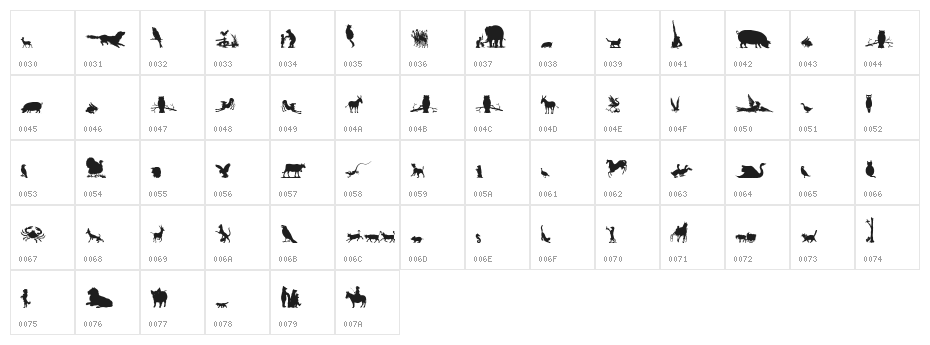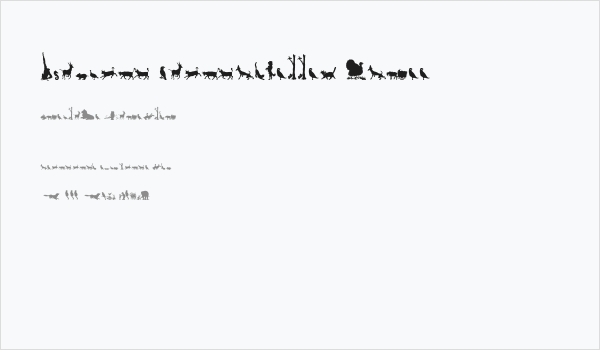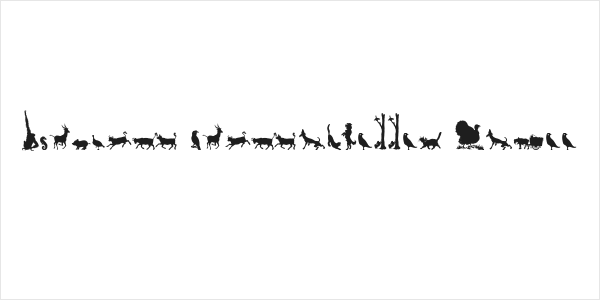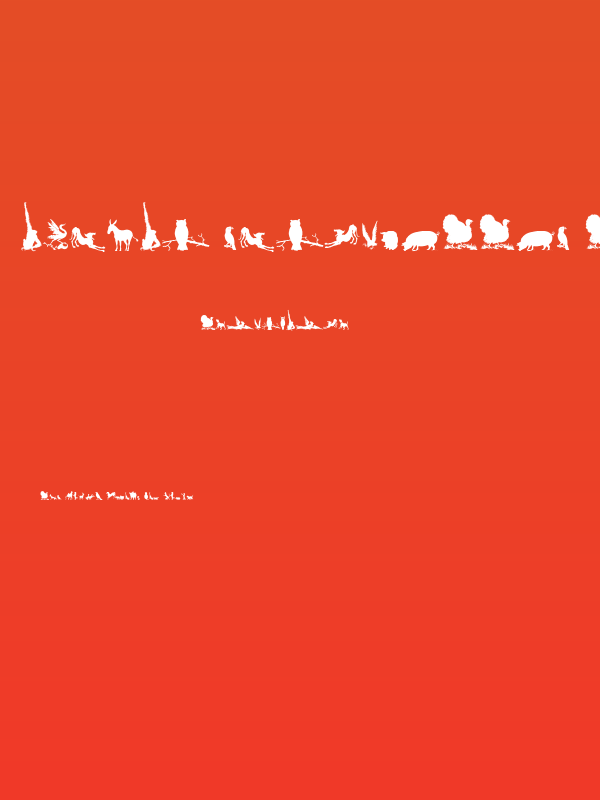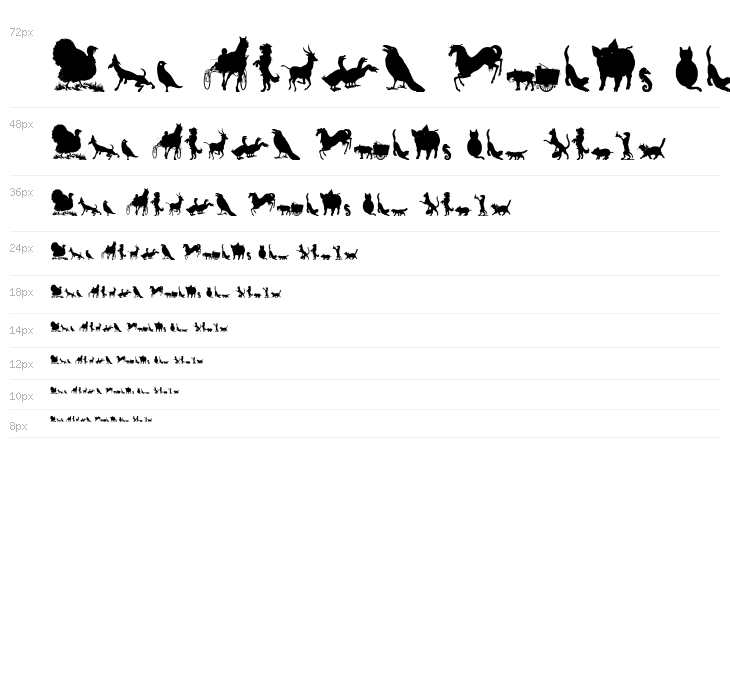
Animal Silhouettes Three Font
Animal Silhouettes Three Description
A decorative font composed entirely of black animal and nature-themed silhouettes, including various birds, mammals, insects, and human figures in different poses and activities.
| Overall Style | Decorative, illustrative |
| Use Case | Headlines, logos, decorative elements, thematic design projects |
| Proposed Projects | Suitable for wildlife-themed designs, educational materials, children's books, nature conservation campaigns, and decorative posters. |